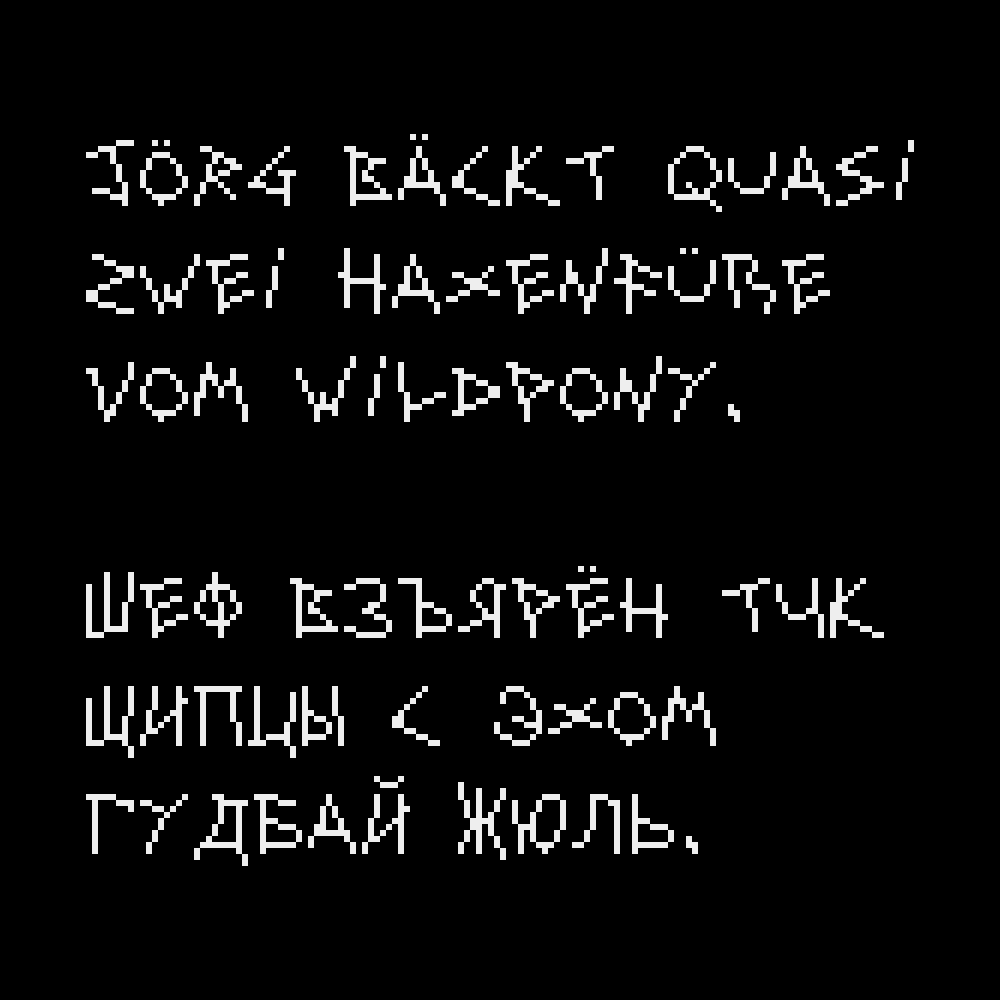
A downloadable pixel font
Fear is a smallcaps, horror, 11px tall pixel font!
Full Character Set:
ABCDEFGHIJKLMNOPQRSTUVWXYZ abcdefghijklmnopqrstuvwxyz 0123456789.,;:?!"'+-=*%_() []{}~#&@©®™°^`|/\<>…€$£¢¿¡“”‘’«»‹›„‚·• ÀÁÂÄÃÅĄÆÇĆÐÈÉÊËĘĞÌÍÎÏİŁÑŃÒÓÔÖÕŐØŒŚŞẞÞÙÚÛÜŰÝŸŹŻàáâäãåąæçćðèéêëęğìíîïıłñńòóôöõőøœśşßþùúûüűýÿźżАБВГҐДЕЁЄЖЗИІЇЙКЛМНОПРСТУФХЦЧШЩЪЫЬЭЮЯабвгґдеёєжзиіїйклмнопрстуфхцчшщъыьэюя
Supported languages:
English, French, Italian, German, Spanish, Portuguese, Danish, Swedish, Norwegian, Icelandic, Hungarian, Polish, Turkish, Russian, Ukrainian…
new! v1.1: fixed the letters Йй and some "underline" artifacts.
"Ii1(){}[]ÌÍÎÏİìíîïıІЇії"
These characters appear to have some sort of artifact below them. Any ideas why? It is as if it's an underline.
There are artifacts you left in the font file :-P. I edited them out.
They are definitely there - I had to download fontforge and remove them.
I just uploaded a fix (v1.1.): thanks for your patience.